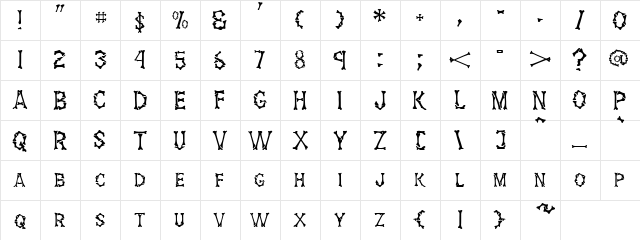
BONES Normal Font Preview
BONES Normal
BONES Normal Font Details
Design Context for BONES Typeface
BONES is a composed and adaptable typeface that performs quietly and consistently across a wide range of design contexts.